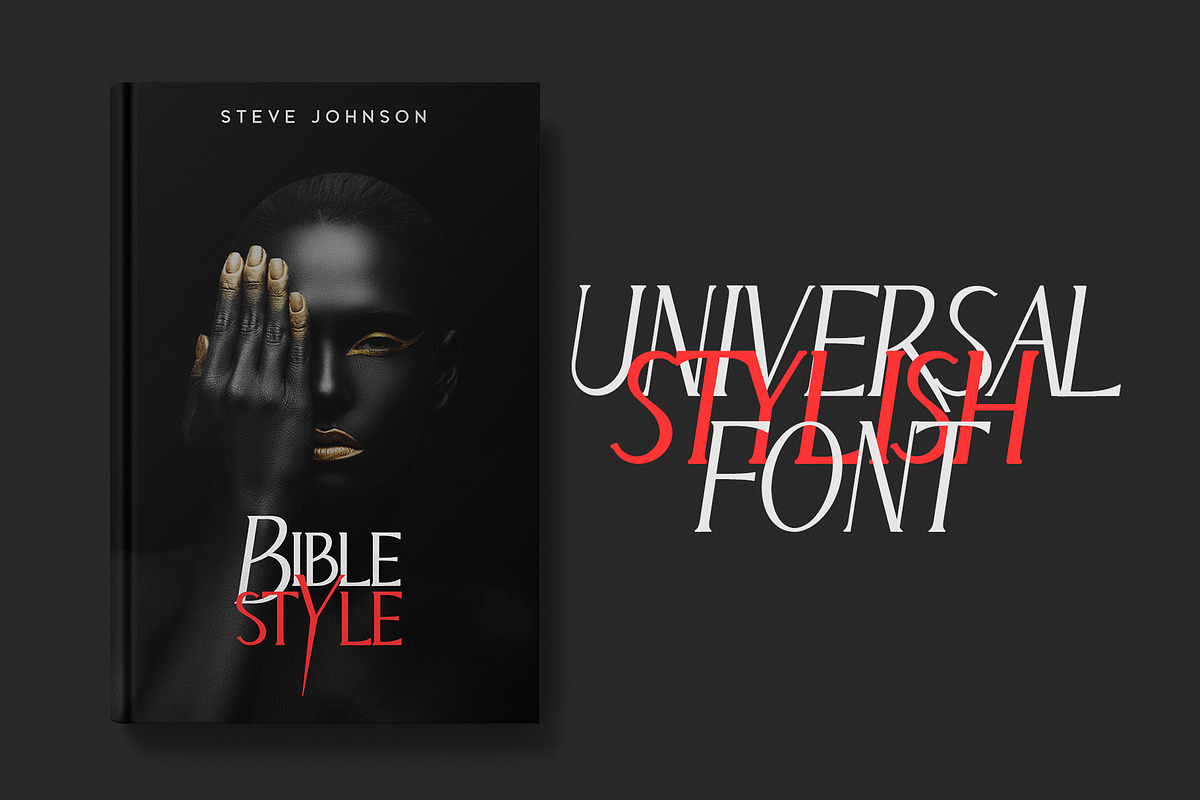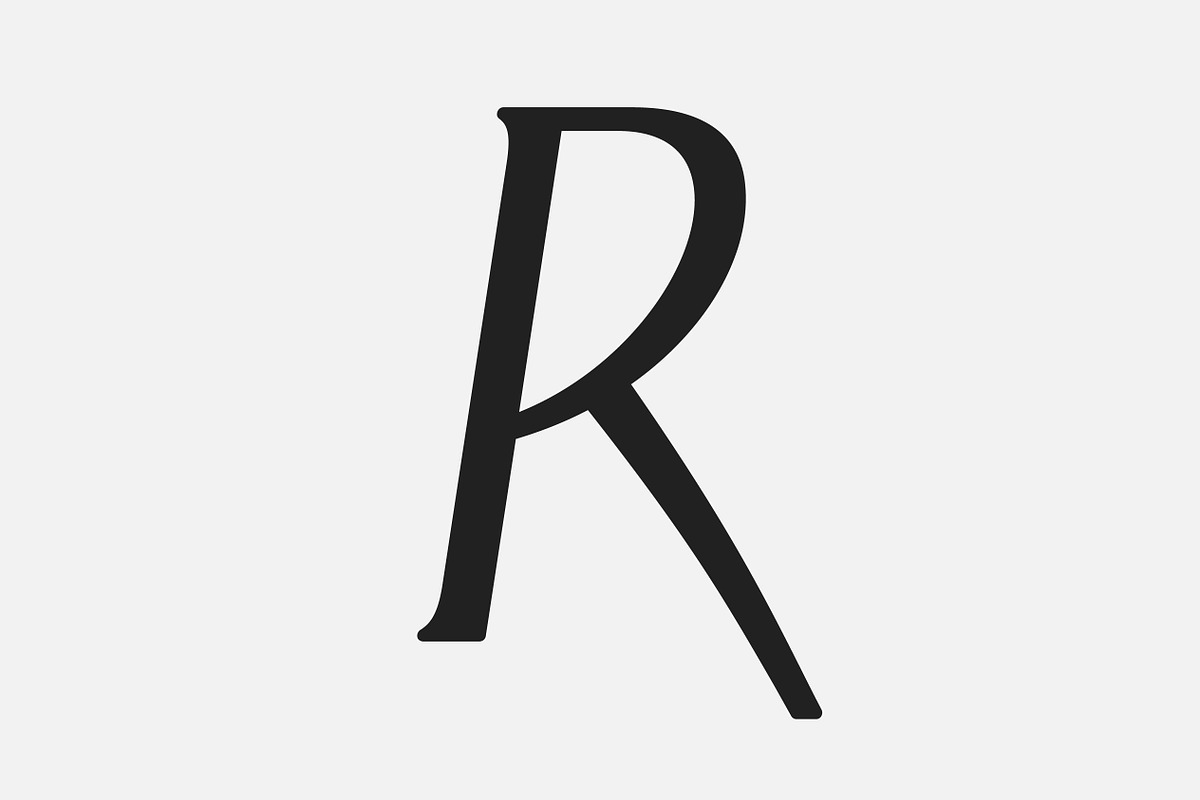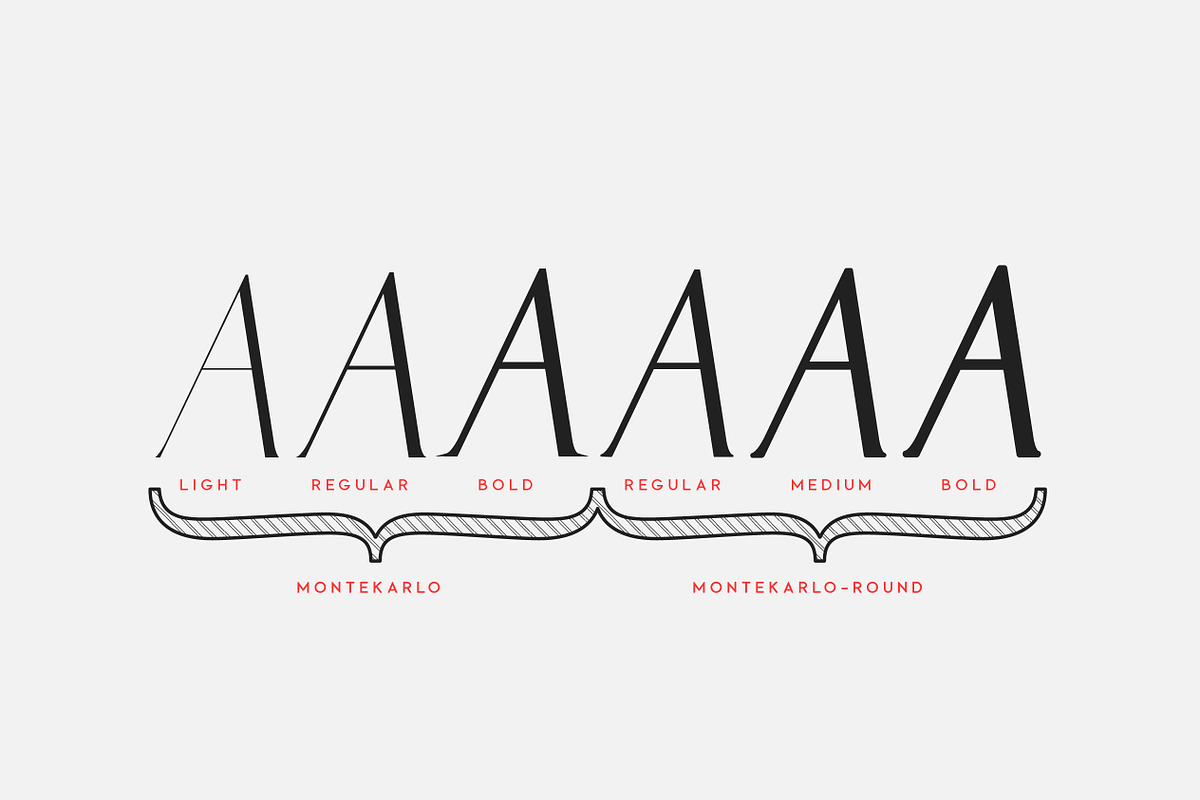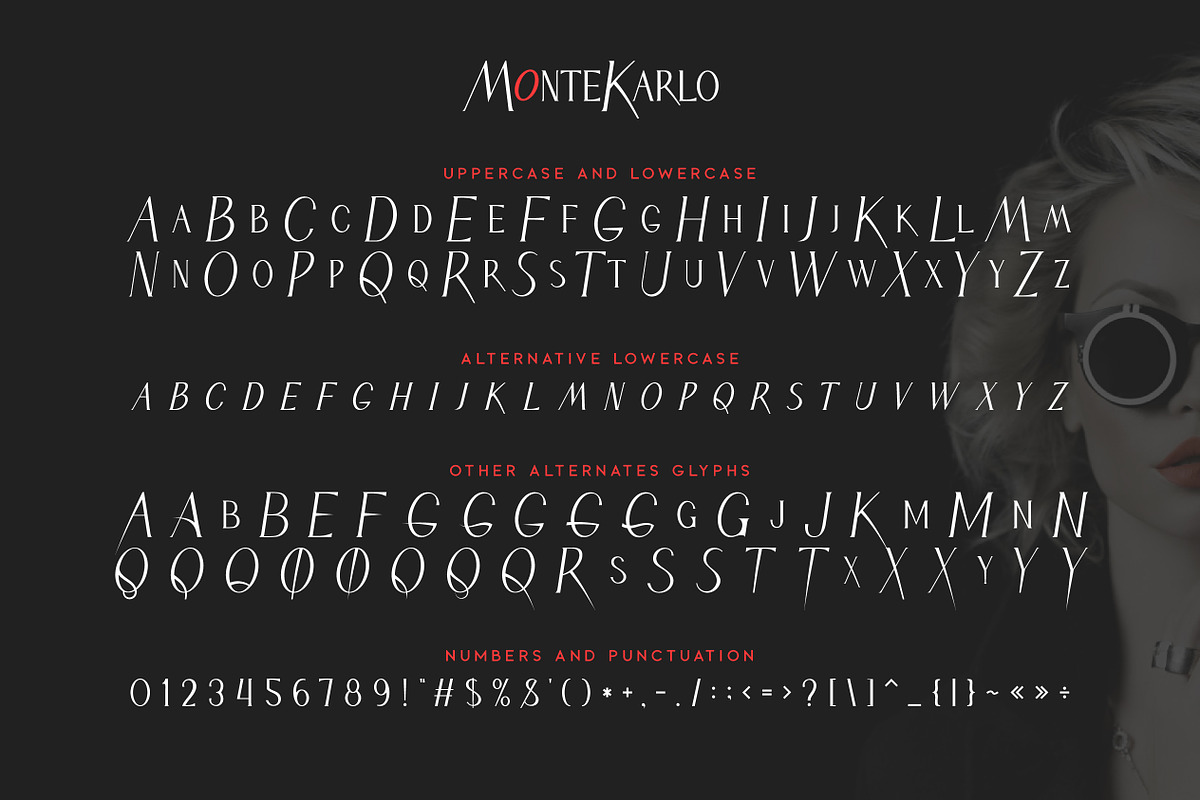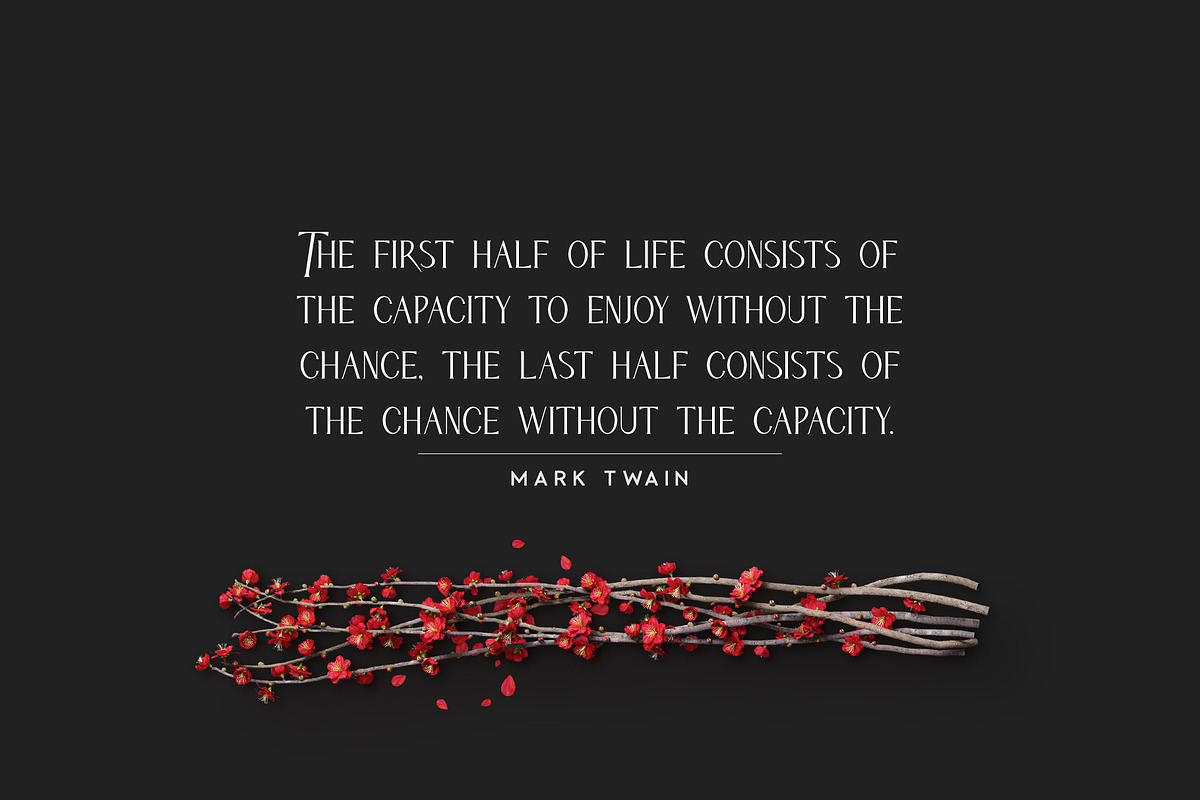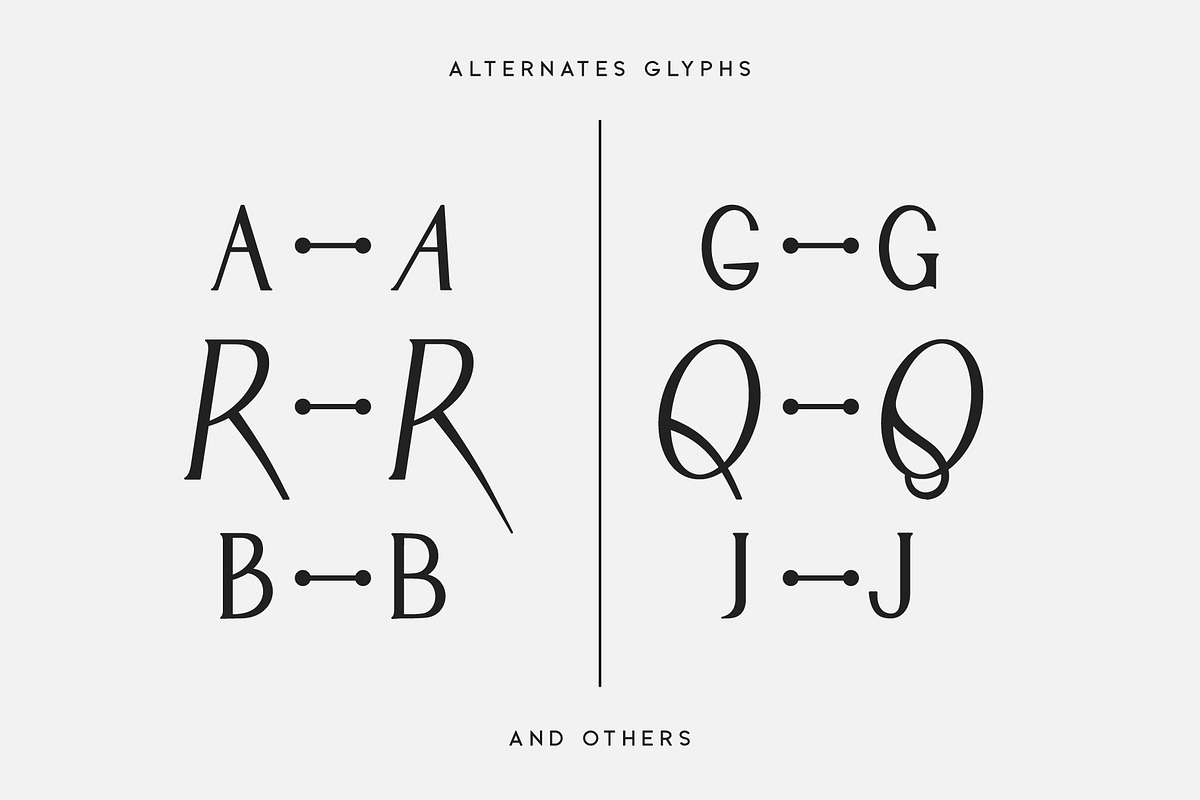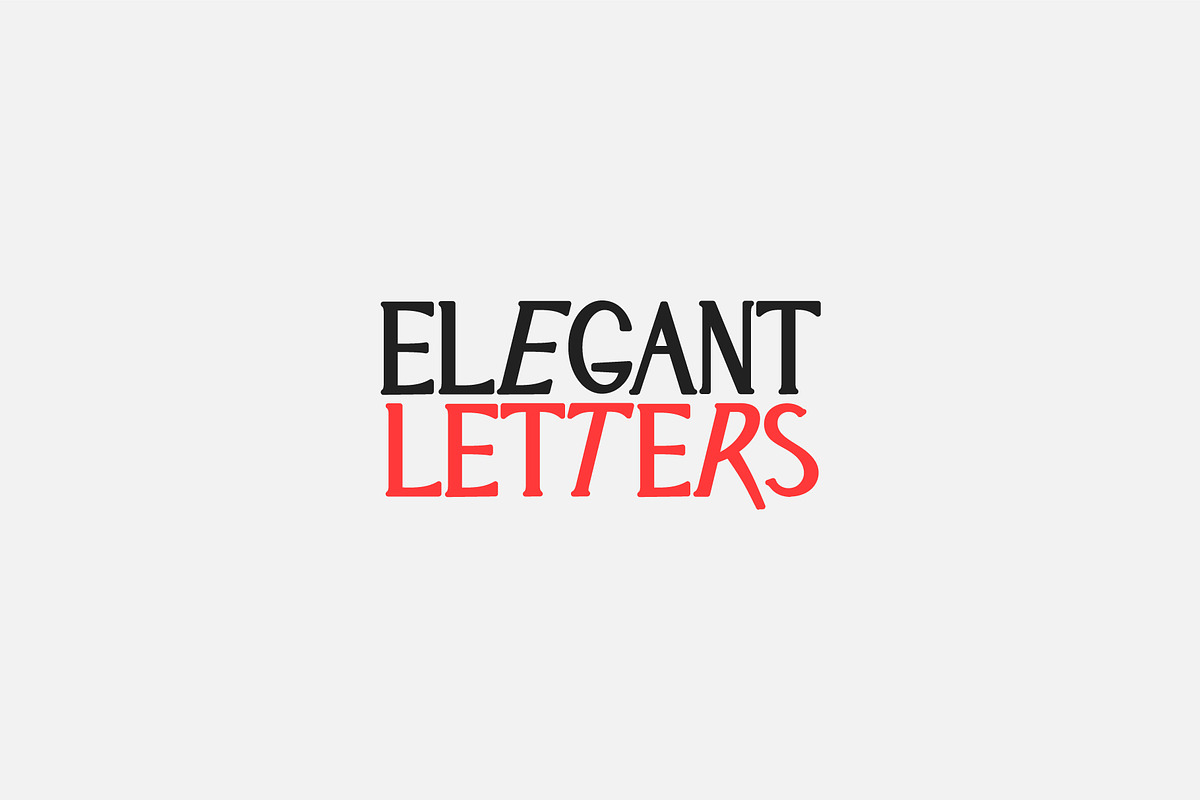
MonteKarlo Serif font family.
Whiff of fashion, smell of a glossy magazine, the harmonious combination of direct and oblique stylistics, moderate extravagance - this all combine in the new unique font - MonteKarlo.
Font is ideal for headlines, short inscriptions, signatures, covers of magazines and books, articles about fashion and elegant festive or greeting cards. Font has no analogues - a real exclusive.
UPPERCASE and lowercase letters
Numbers & basic Punctuation
Light Regular and Bold font style in family: MonteKarlo
Regular, Medium and Bold font style in family: MonteKarlo-round
Ideal harmonious bends